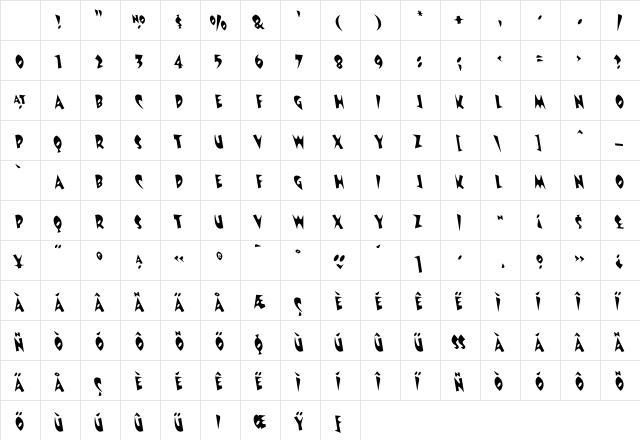
Complete Revolver Recoil glyph index. Displaying only characters natively supported by Revolver Recoil font.
Revolver is a composed and adaptable typeface that performs quietly and consistently across a wide range of design contexts.